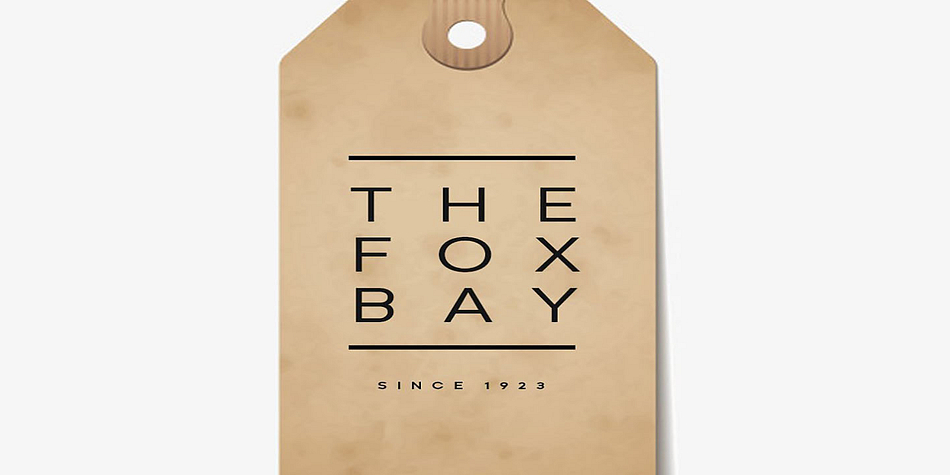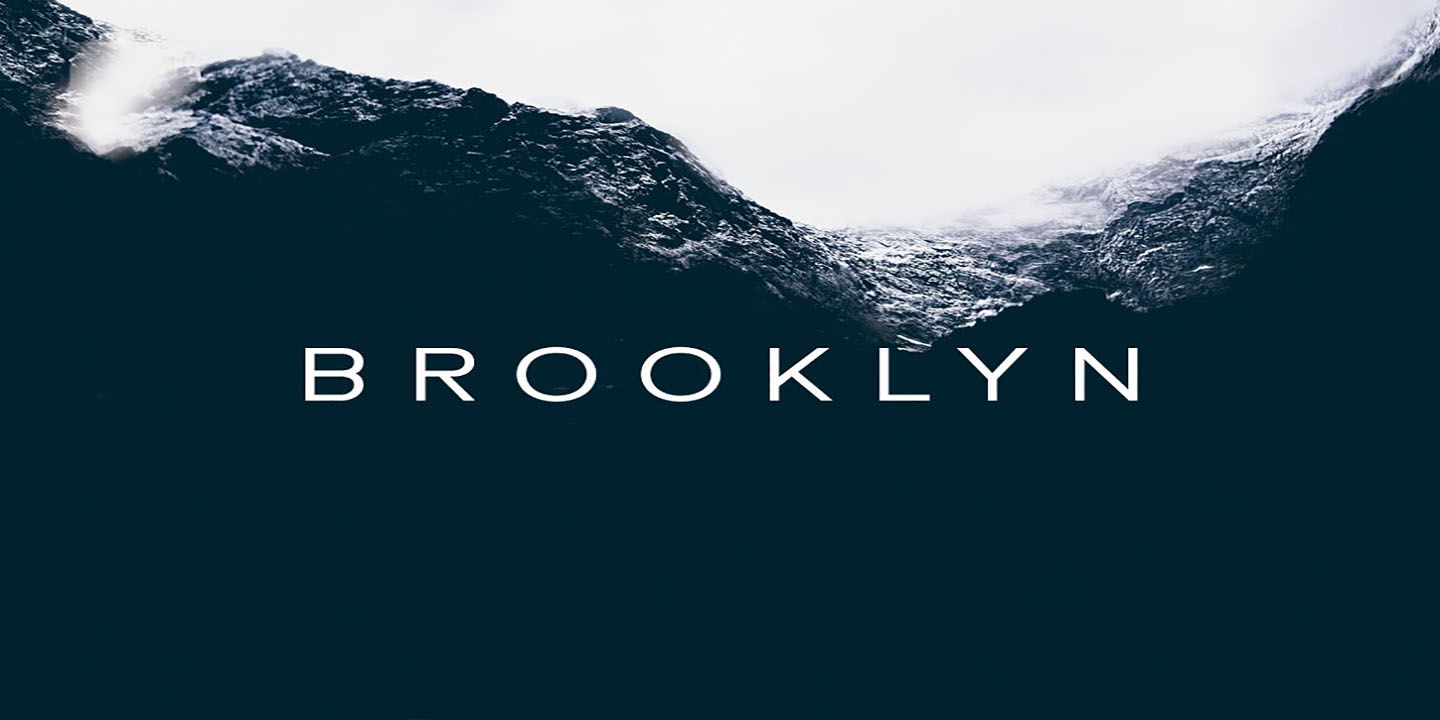
BROOKLYN
BROOKLYN is a sans serif font family. This typeface has eight styles and was published by Fontastica.
BROOKLYN is a modern Sans-Serif typeface inspired by classic geometric typefaces that keep the minimalism at it’s level best. BROOKLYN will be perfect for creating nicely looking headlines (add some letter spacing and it will amaze you) that you always find in fashion web stores and minimal portfolio websites. You can create stunning logotypes and branding designs with this typeface (just see demo graphics to get a basic idea how it looks). The typeface comes with 4 weights + 4 italic versions, total of 8 fonts.